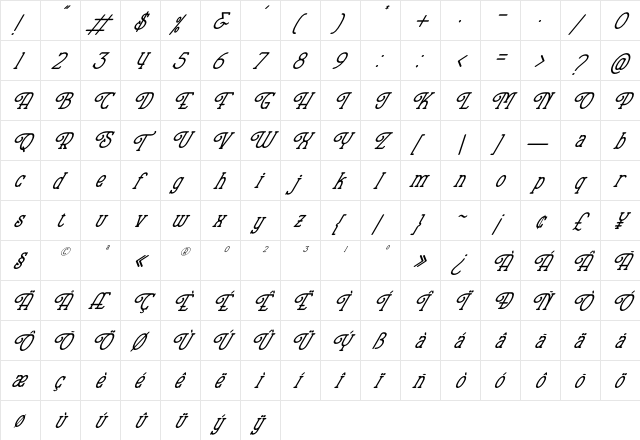
Hopkinson Italic Regular
Design Context for Hopkinson Italic Typeface
Hopkinson Italic offers clean, dependable letterforms without strong stylistic allegiance, making it a practical choice for designers who need flexibility. The slanted form adds forward momentum and visual energy.
Pro Tip: Use Hopkinson Italic for emphasis, pull quotes, and subheadings where its slanted energy can add rhythm to the layout.